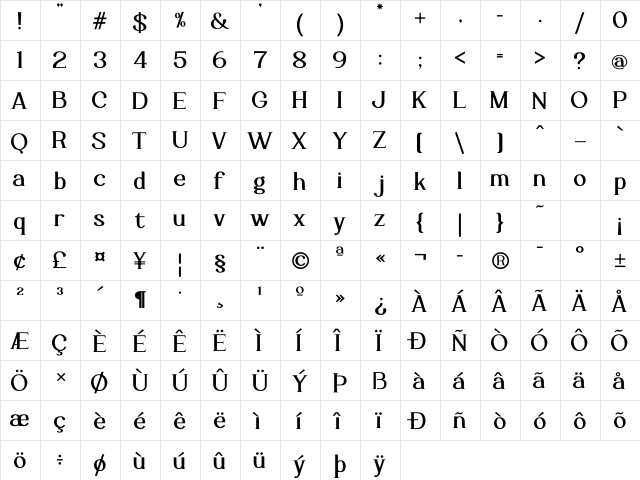
Luimp Bold Bold
Design Context for Luimp Bold Typeface
Luimp Bold is a composed and adaptable typeface that performs quietly and consistently across a wide range of design contexts. The heavy weight commands attention and anchors typographic hierarchies.